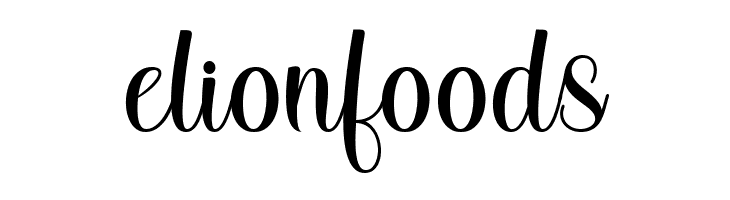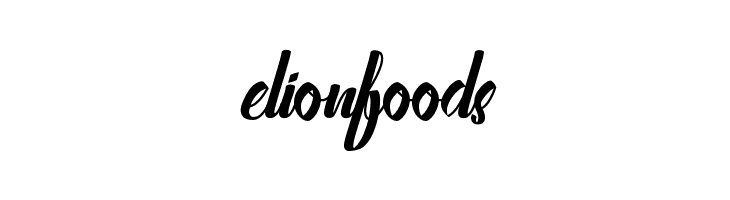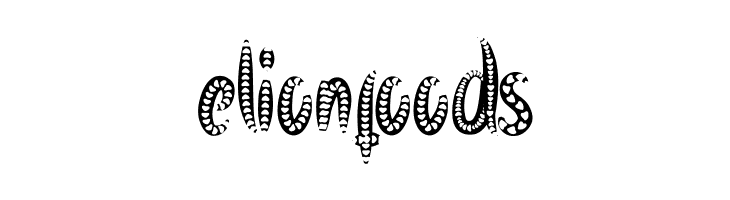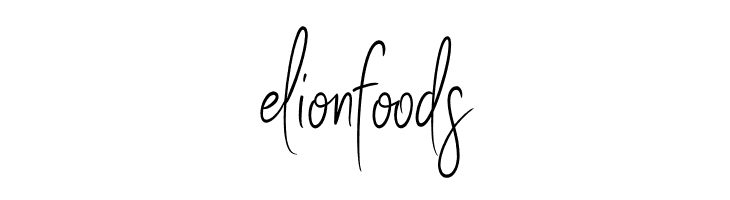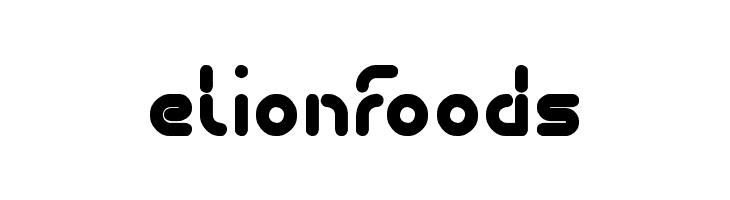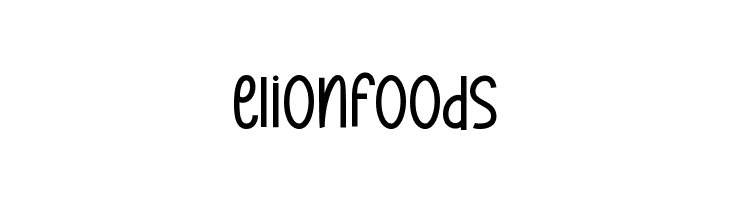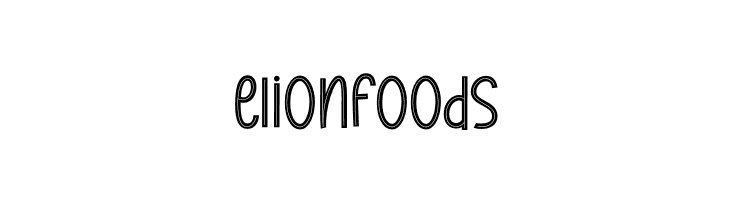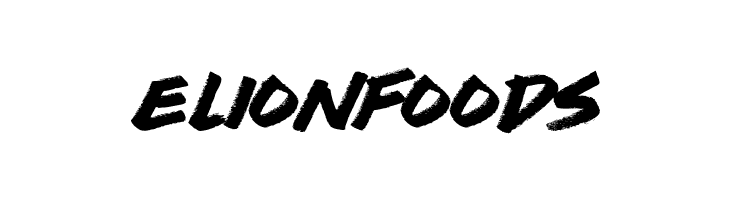
An elegant script font with flowing, decorative strokes.
A dynamic and elegant script font with flowing, cursive letterforms.
A playful, heart-patterned decorative font with a hand-drawn style.
A stylish, handwritten font with elongated, flowing lines and a sophisticated appearance.
A bold, futuristic font with rounded edges and geometric structure.
A playful, bold font with rounded edges and a whimsical style.
A playful, inline font with rounded, elongated characters and a whimsical style.
A bold, brush-style font with dynamic, hand-painted strokes.
A fluid, handwritten font with elegant curves and a personal touch.
A playful, casual handwritten font with flowing, irregular letterforms.